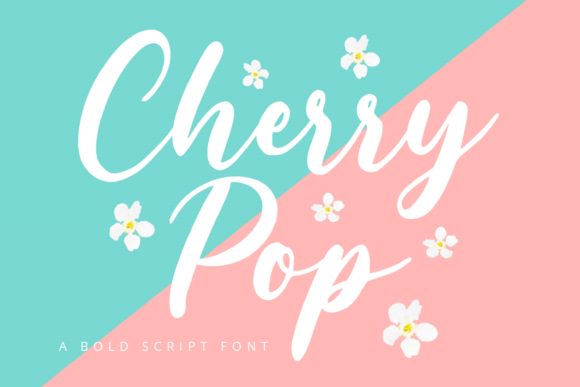
Behold, Cherry Pop – a font so enchanting, it dances across the screen like a nimble ballerina. This magical handwritten script, crafted by the talented Graphue, exudes both elegance and uniqueness. With its captivating curves and dynamic strokes, Cherry Pop adds an irresistible charm to any design.
Immerse yourself in the world of tattoos and let Cherry Pop guide your creativity. Its bold lines, inspired by the art of ink on skin, bring a touch of rebellion and intrigue to your designs. The font's distinct character will make your words stand out, whether it's a tattoo lettering design, a striking poster, or an unforgettable branding project.
Unleash your imagination and watch as Cherry Pop transforms your designs into captivating masterpieces. This extraordinary font is not just a tool; it's a muse that sparks inspiration and fuels your creativity. With Cherry Pop by your side, your designs will captivate audiences and leave an imprint on their hearts.